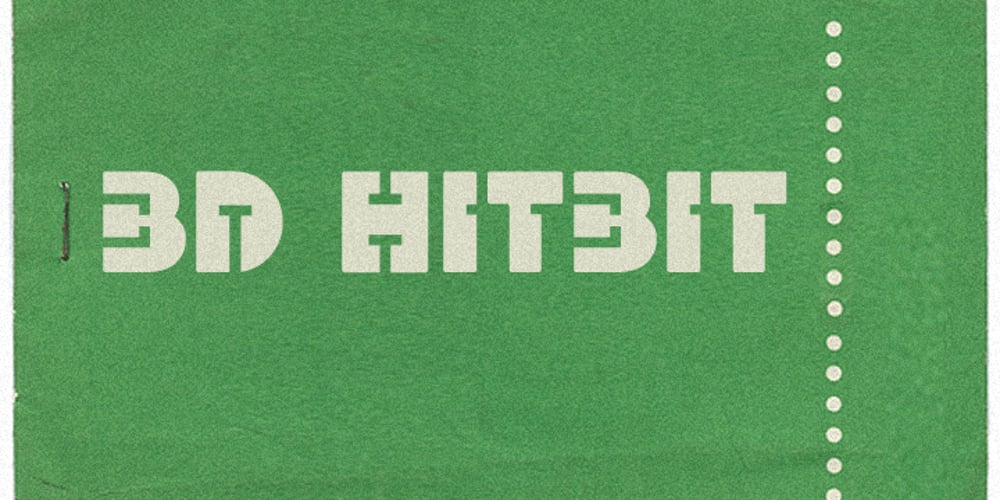
BD HitBit
BD HitBit font
BD HitBit Font Family was designed by Lorenz (Lopetz) Gianfreda and published by Typedifferent. BD HitBit contains 1 styles and family package options. BD HitBit is a heavy uppercase display font with a technical approach, great for logotype creation and titling.